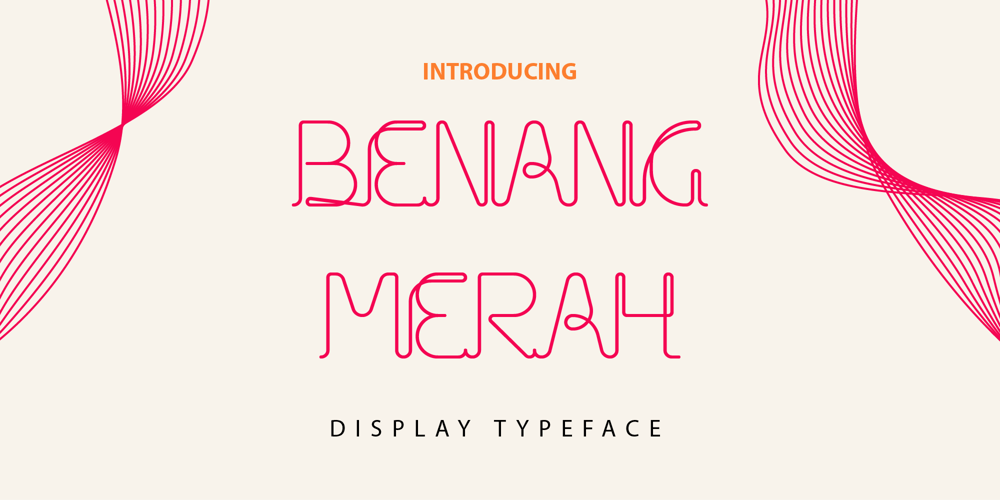
Benang Merah Font Family was designed by Zainul Faozi and published by San Studio. Benang Merah contains 1 styles and family package options. Benang Merah is designed by Zainul Faozi, the idea concept is from a thread, each letter is connected that is the uniqueness of this font. You can use this font for your poster design, heading, social media, lettering design, and more. This font can be paired well with serif fonts.